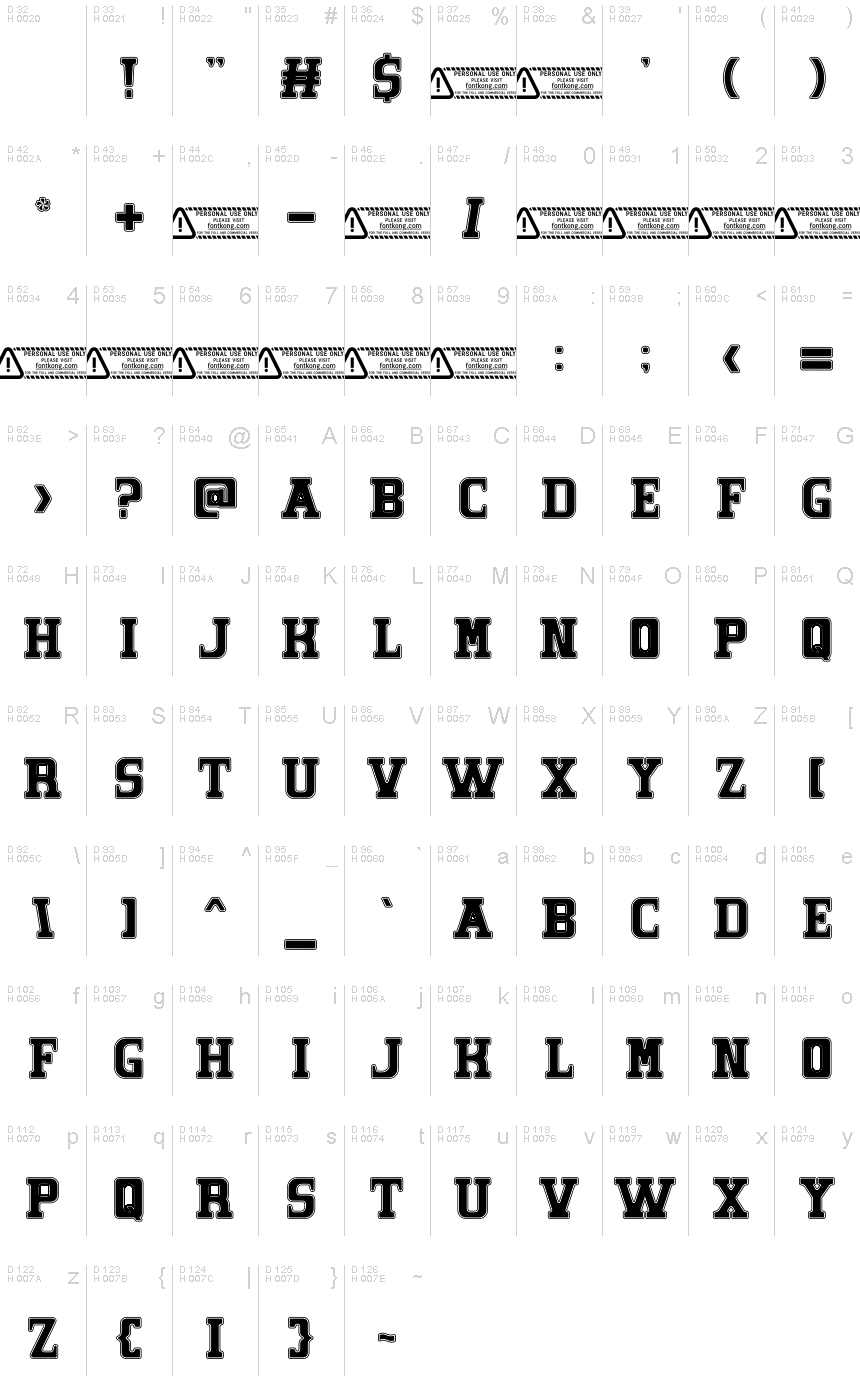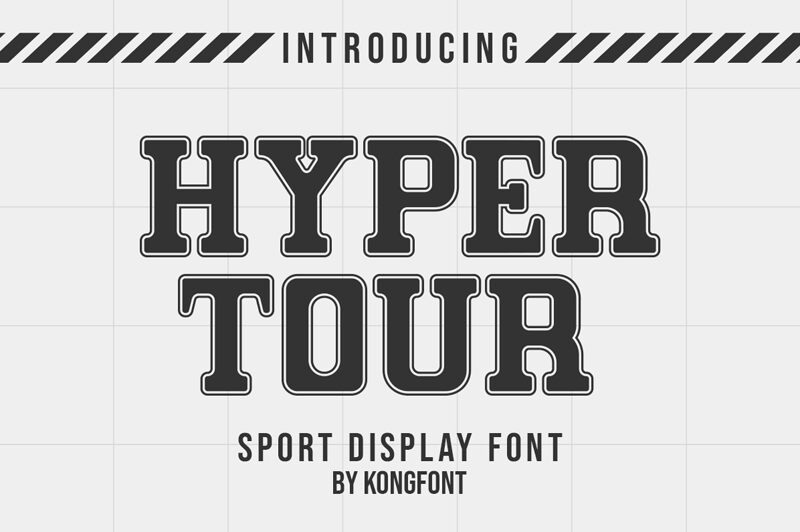
Hyper Tour
Hyper Tour, from the creative mind of Kong Font, is a display typeface that boldly bridges the gap between contemporary design and old school serifs. Its robust bold weight commands attention, making it an undeniable focal point in any visual composition. The Hyper Tour font embodies a nostalgic essence with its classic serif details, yet it is crafted to make a striking impact on modern-day projects.
Distinct in character and style, this font offers designers a versatile tool for injecting personality into branding, promotional materials, and eye-catching headlines. Whether gracing concert posters or adorning editorial spreads, Hyper Tour's vintage charm and present-day boldness make it an ideal choice for projects that require a font with presence and versatility.